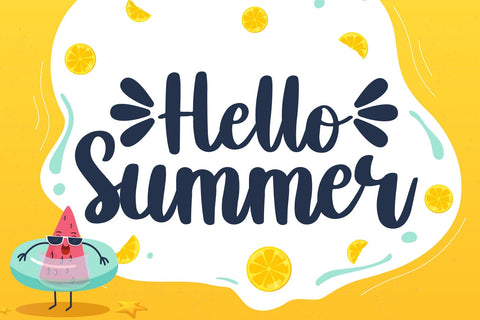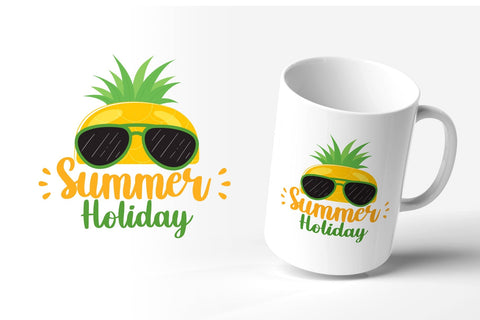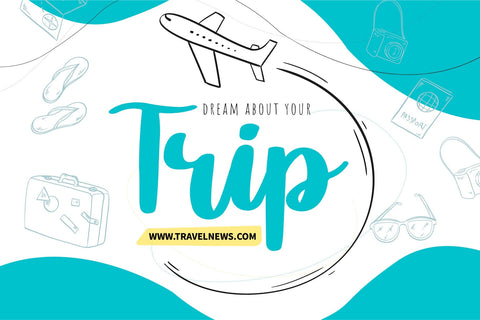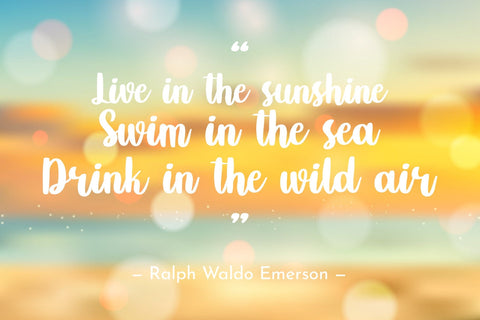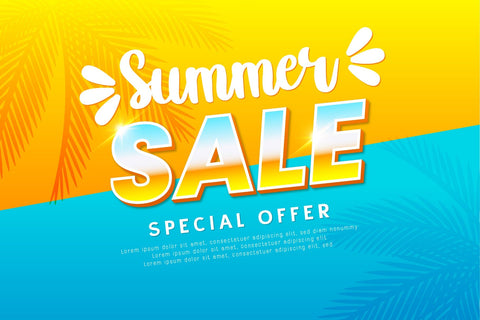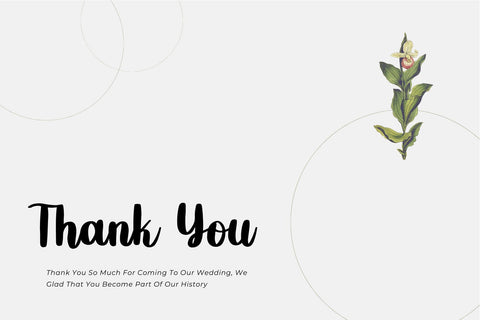
Hello Summer Font
Hello Summer is a delicate, cute, and stylish handwritten font. It will be ideal for blog posts, logos, branding, ads, invitations, greeting cards, planners, photo albums, decorations, and much more.